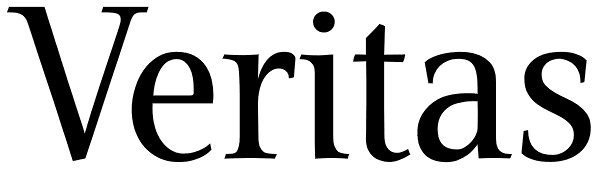
Veritas
Veritas is a serif text family. It is a narrow-width typeface, with a taller x-height than Times Roman for added legibility, but maintains a similar character count in text. It is typeface designed for publication, newspaper (anywhere where narrow...